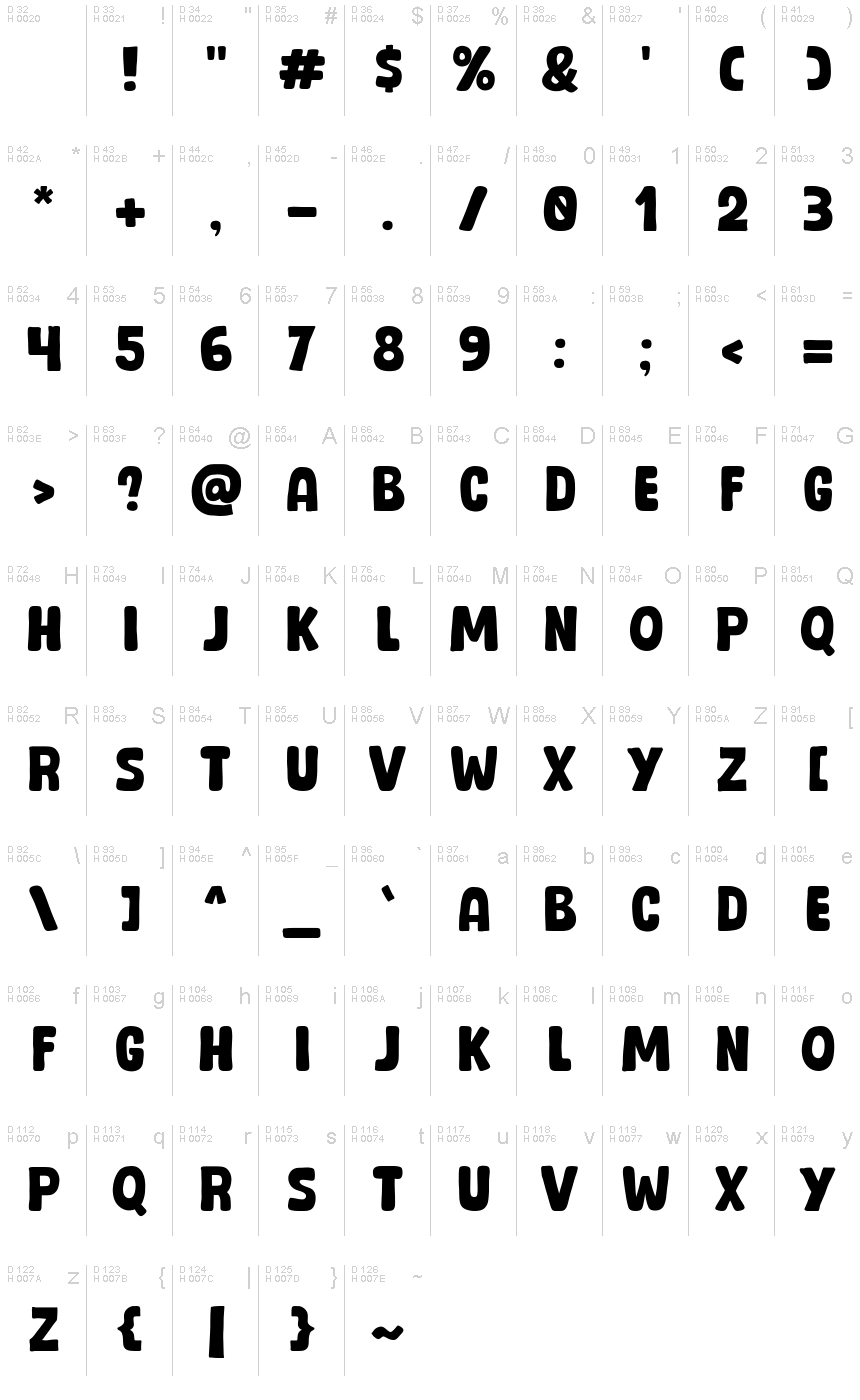
Chatlong
Chatlong, a bold and playful font designed by Khurasan, commands attention with its distinct cartoon-inspired aesthetic. This display typeface exudes a sense of whimsy and energy, inviting the viewer to embrace its expressive, yet legible form. The thick, dynamic strokes and rounded terminals lend a charming, approachable quality, making Chatlong a captivating choice for a wide range of creative projects.
Chatlong's versatility shines through its ability to seamlessly integrate into various design contexts. Its bold, attention-grabbing presence makes it an ideal selection for branding, packaging, and promotional materials, where it can effectively convey a playful and memorable brand identity. Additionally, Chatlong's playful personality lends itself well to children's illustrations, educational resources, and lighthearted editorial designs, where its unique character can truly shine.